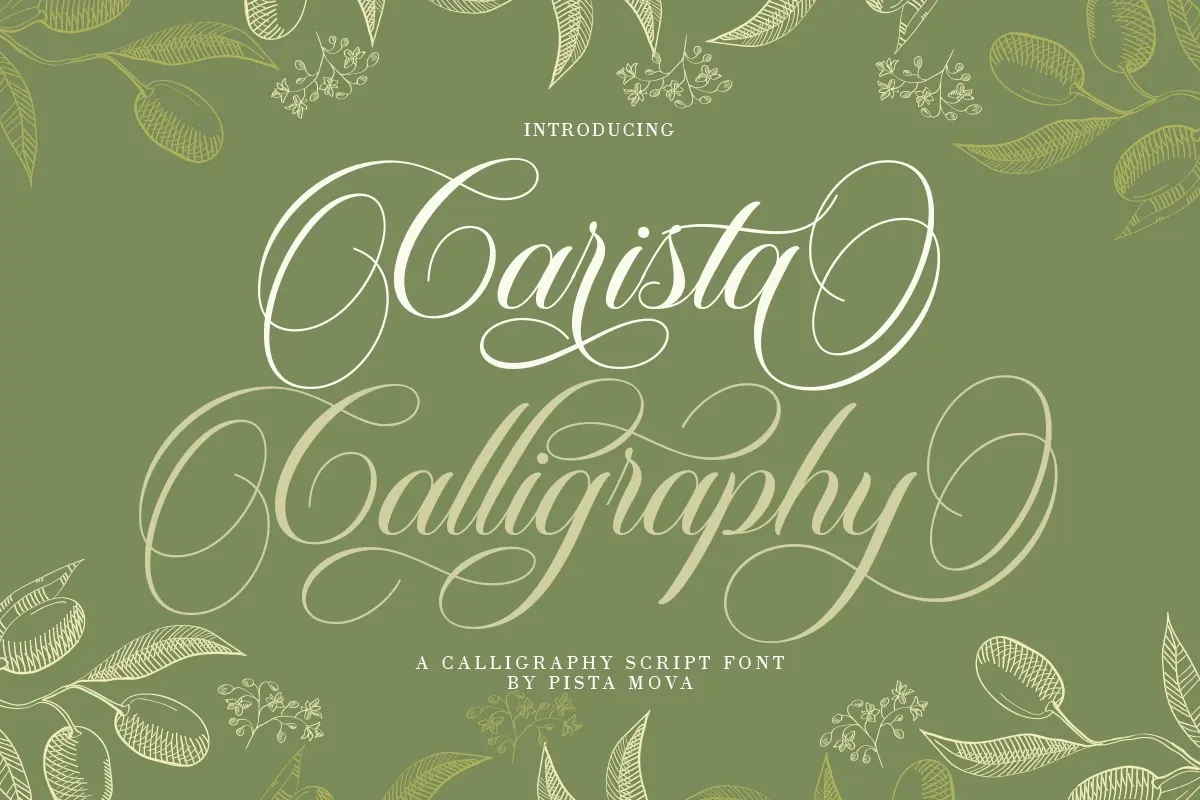
Carista Calligraphy Font Free Download is a refined and elegant script typeface that captures the beauty of traditional calligraphy with a modern twist. Featuring smooth, flowing strokes and delicate flourishes, Carista is perfect for wedding invitations, branding, luxury product packaging, greeting cards, and other elegant projects that require a sophisticated, handwritten touch.
The font’s graceful curves and stylish details give it a timeless appeal, making it ideal for both formal and creative designs. Whether you're working on a chic logo or an elegant event invite, Carista adds a touch of class and elegance to your typography.